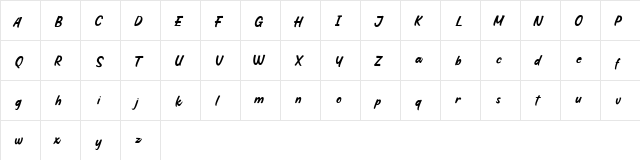
Hoffers Script DEMO Regular
Design Context for Hoffers Script DEMO Typeface
Hoffers Script DEMO brings a calligraphic fluidity to the page — its connecting strokes and expressive curves give it an unmistakably human quality.
Font Pairing: Combine Hoffers Script DEMO with a simple geometric sans for maximum contrast — the tension between flowing curves and clean structure is a classic typographic pairing.
Pro Tip: Use Hoffers Script DEMO for short runs of text — names, titles, or taglines. Extended body copy in script faces tires the eye quickly.